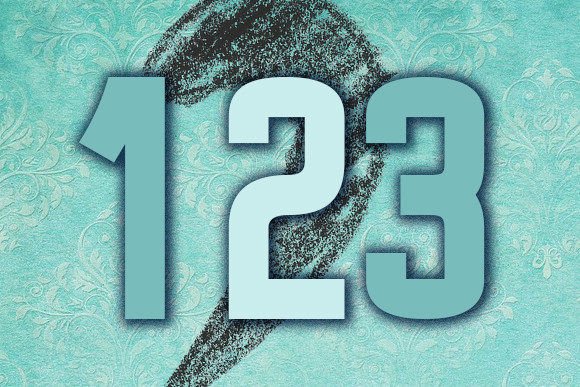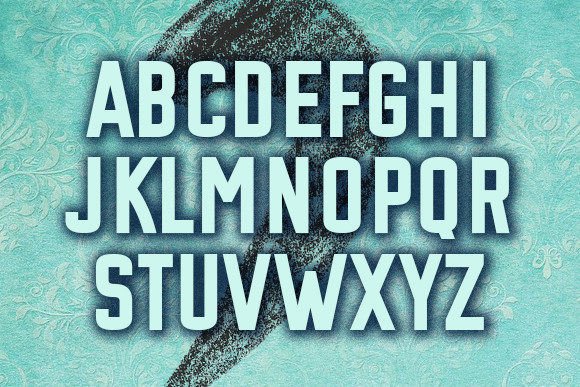
Introducing Comma Font: The Ultimate Display Font for Creative Masterpieces
Comma Font is an incredibly unique display font that has been masterfully designed to become a true favorite among designers and crafters. With its exceptional style and versatility, this font has the potential to bring each of your creative ideas to the highest level. Whether you’re working on a branding project, a marketing campaign, or a personal craft, Comma Font is the perfect choice to make your work stand out.
What Makes Comma Font So Special?
Comma Font boasts a distinctive and eye-catching design that sets it apart from other display fonts. Its unique characteristics make it an excellent choice for a wide range of applications, from headings and titles to logos and signage. The font’s exceptional legibility and readability ensure that your message is conveyed clearly and effectively, making it an ideal choice for both digital and print materials.
Key Features of Comma Font
- Unique and Creative Design: Comma Font features a one-of-a-kind design that is sure to grab attention and leave a lasting impression.
- Highly Legible: The font’s clear and clean lines ensure excellent readability, even at smaller sizes.
- Versatile: Comma Font can be used for a wide range of applications, from headings and titles to logos and signage.
How to Use Comma Font in Your Designs
Comma Font can be used in a variety of ways to enhance your designs. Here are a few ideas to get you started:
- Headings and Titles: Use Comma Font to create eye-catching headings and titles that draw attention and convey your message.
- Logos and Branding: The font’s unique design makes it an excellent choice for logos and branding materials that need to stand out.
- Signage and Posters: Comma Font is perfect for creating eye-catching signage and posters that grab attention and communicate your message.
- Digital Materials: The font is also suitable for digital materials, such as social media graphics, email headers, and website titles.
Tips for Getting the Most Out of Comma Font
To get the most out of Comma Font, here are a few tips to keep in mind:
- Experiment with Different Sizes: Comma Font looks great at a variety of sizes, so don’t be afraid to experiment and find the perfect size for your design.
- Play with Color: The font’s unique design looks great in a range of colors, so try out different color combinations to find the one that works best for your design.
- Use it Sparingly: While Comma Font is a versatile font, it’s best used sparingly to avoid overwhelming the reader.
Comma Font is an exceptional display font that has the potential to bring your creative ideas to the highest level. With its unique design, exceptional legibility, and versatility, this font is perfect for designers and crafters looking to create stunning visual masterpieces. Whether you’re working on a branding project, a marketing campaign, or a personal craft, Comma Font is the perfect choice to make your work stand out.